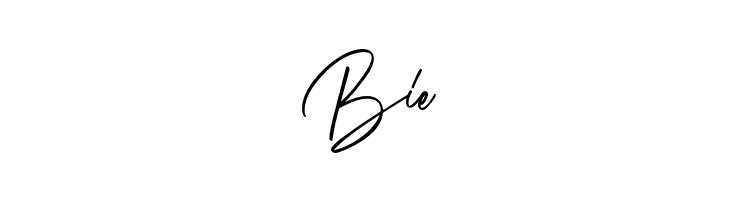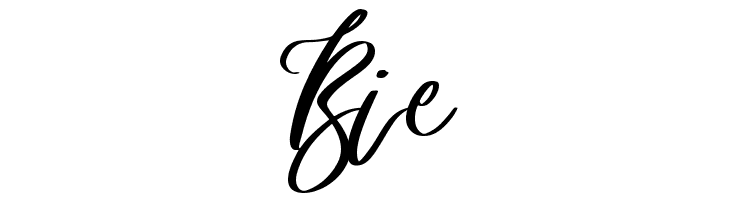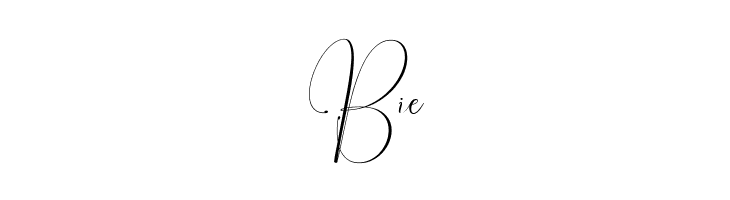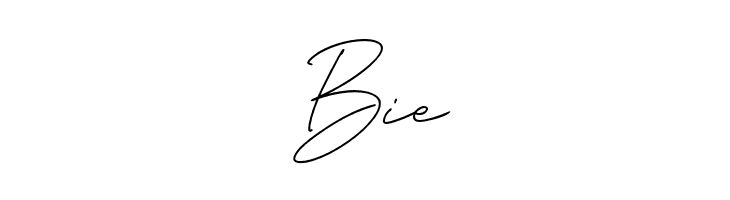
A graceful script font with fluid, connected strokes and a sophisticated style.
A graceful script font with fluid, connected strokes and elegant curves.
An elegant and sophisticated cursive script font with flowing, graceful loops.
A graceful calligraphy-style script font with elegant, flowing letters.
A graceful and elegant script font with flowing, cursive letters.
An elegant and flowing script font with intricate swirls and graceful curves.
A modern, elegant script font with flowing, cursive lines and graceful loops.
A graceful script font with flowing, connected strokes and elegant curves.
A graceful, handwritten script font with smooth, connected strokes.
A graceful, slanted script font with smooth, flowing letterforms.